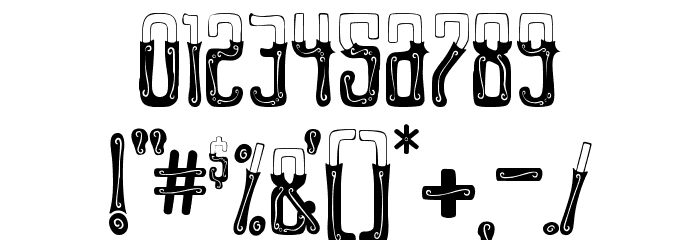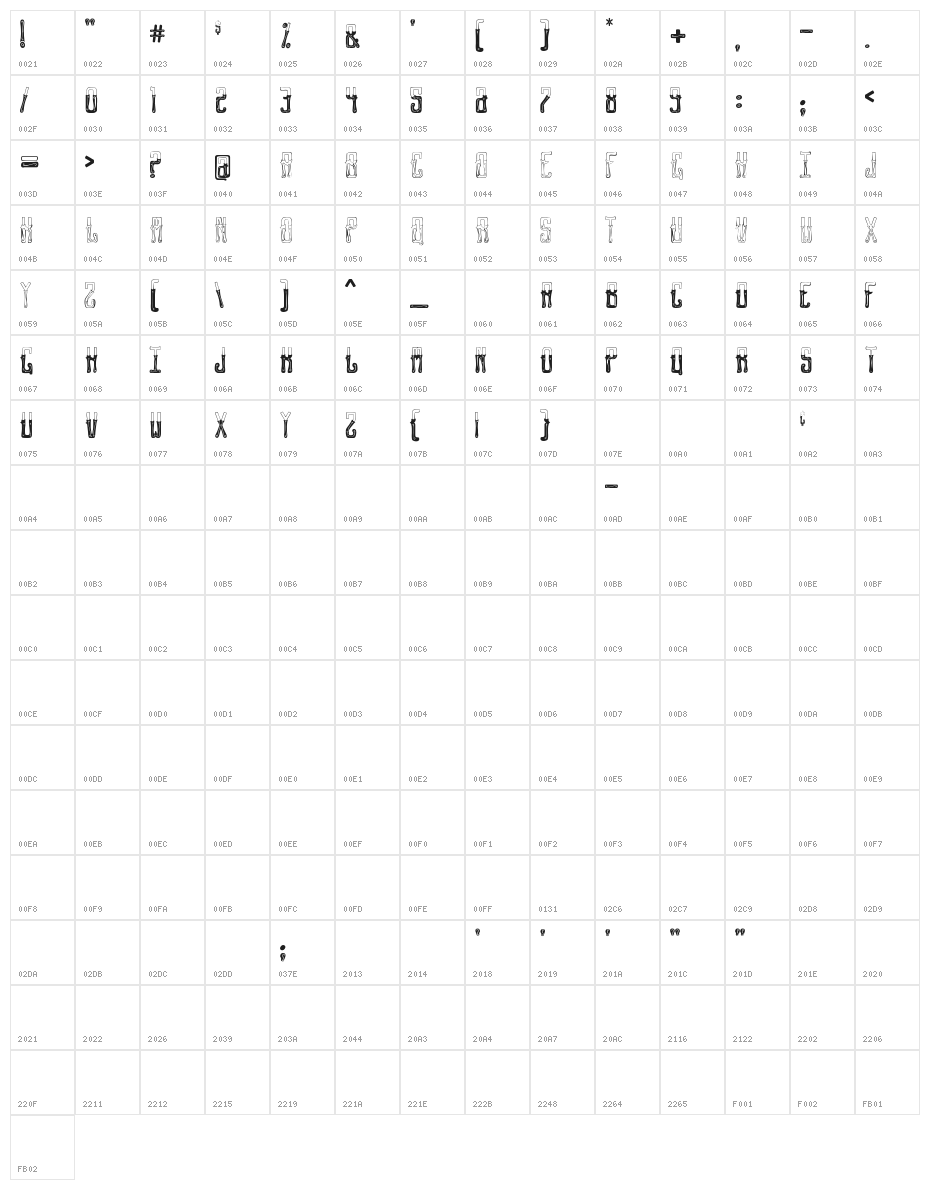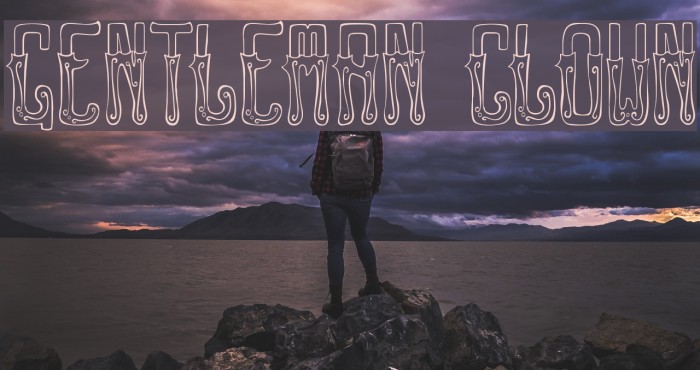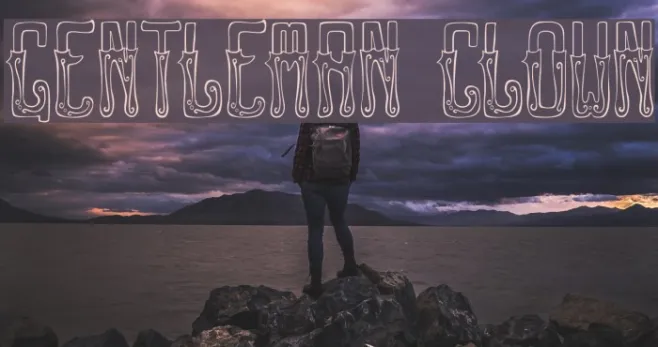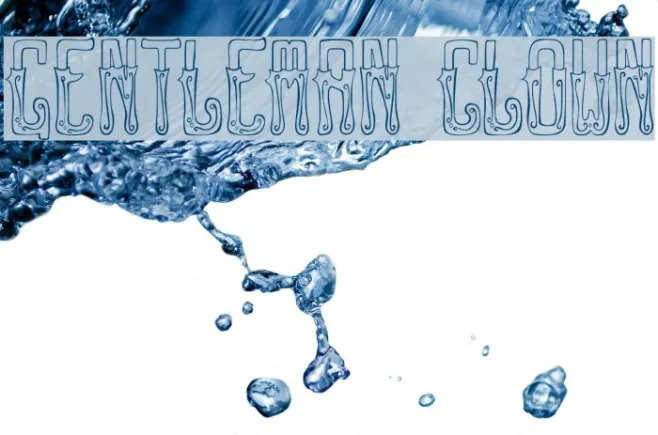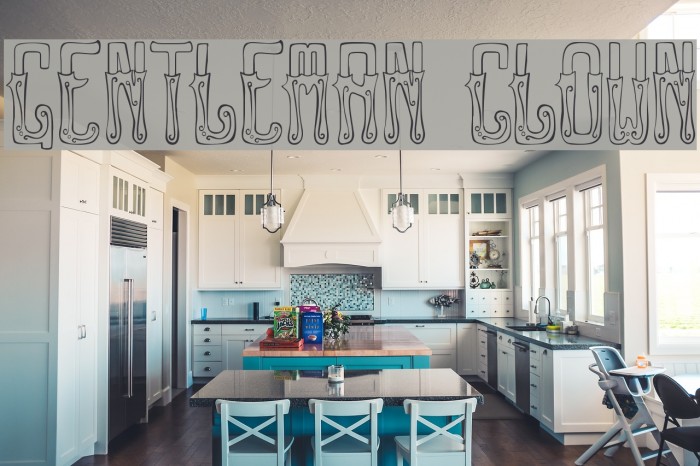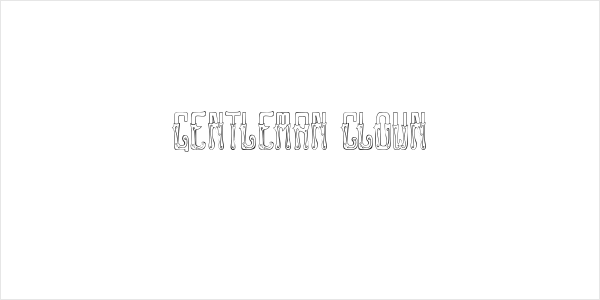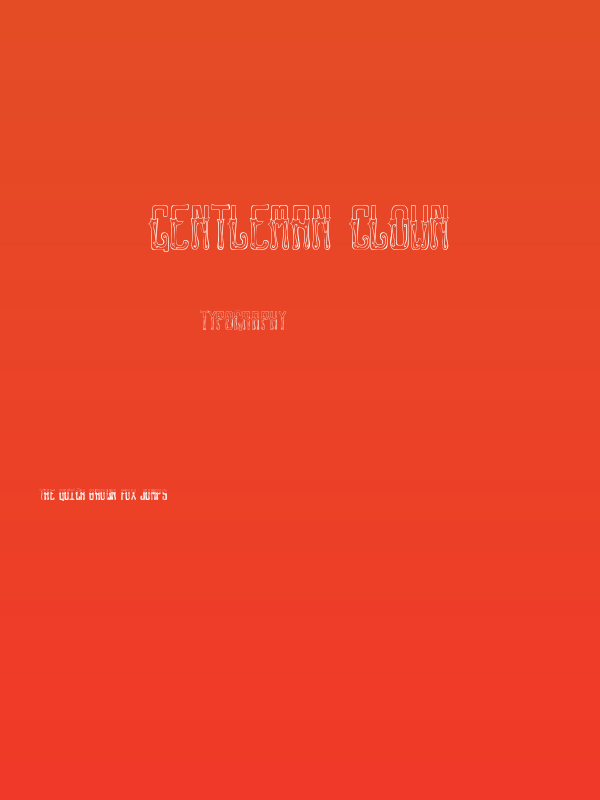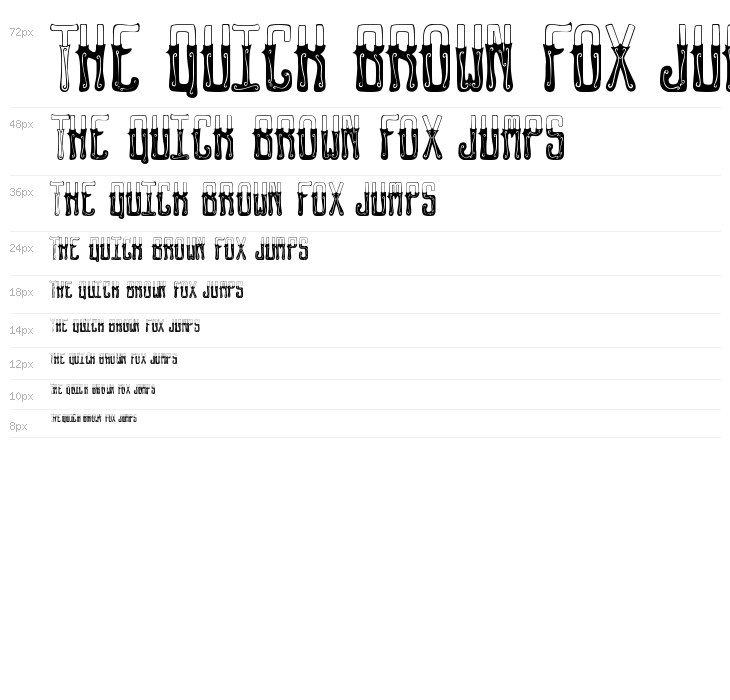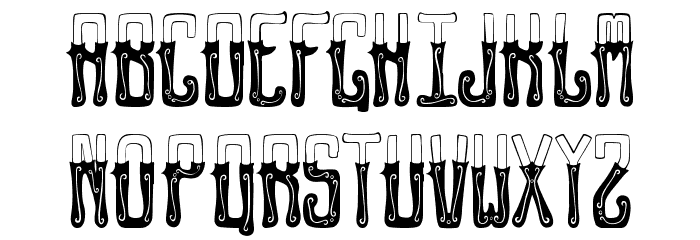
GENTLEMAN CLOWN Font
GENTLEMAN CLOWN Description
This font features a whimsical and playful design, characterized by its unique blend of decorative elements and bold strokes. Each character is adorned with intricate details that resemble a fusion of vintage circus aesthetics and modern typography. The uppercase letters are particularly striking, with exaggerated serifs and flourishes that add a sense of movement and flair. The lowercase letters maintain the same decorative style, ensuring consistency throughout the typeface. Numbers and special characters are equally ornate, making this font ideal for projects that require a touch of elegance and creativity. The overall design is both eye-catching and sophisticated, perfect for making a bold statement.
| Overall Style | Vintage, Decorative |
| Proposed Projects | Ideal for posters, invitations, branding, and any project that requires a playful yet elegant touch. |